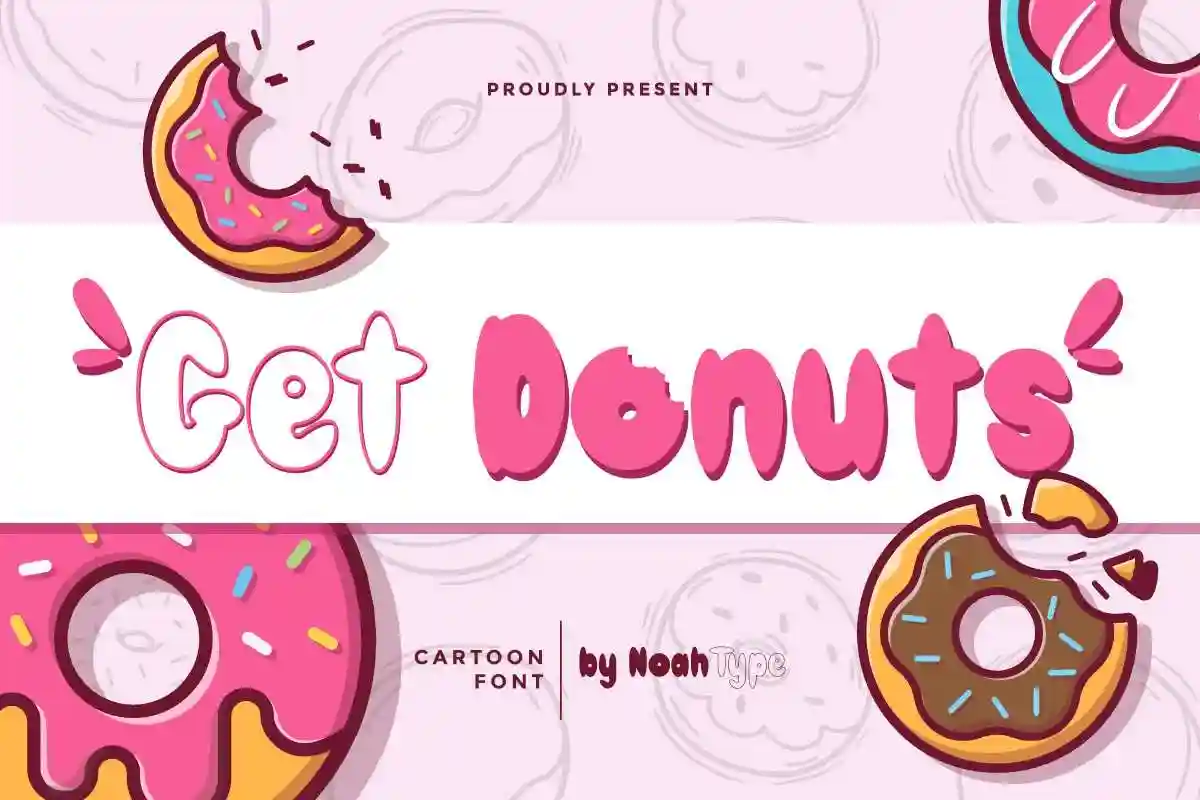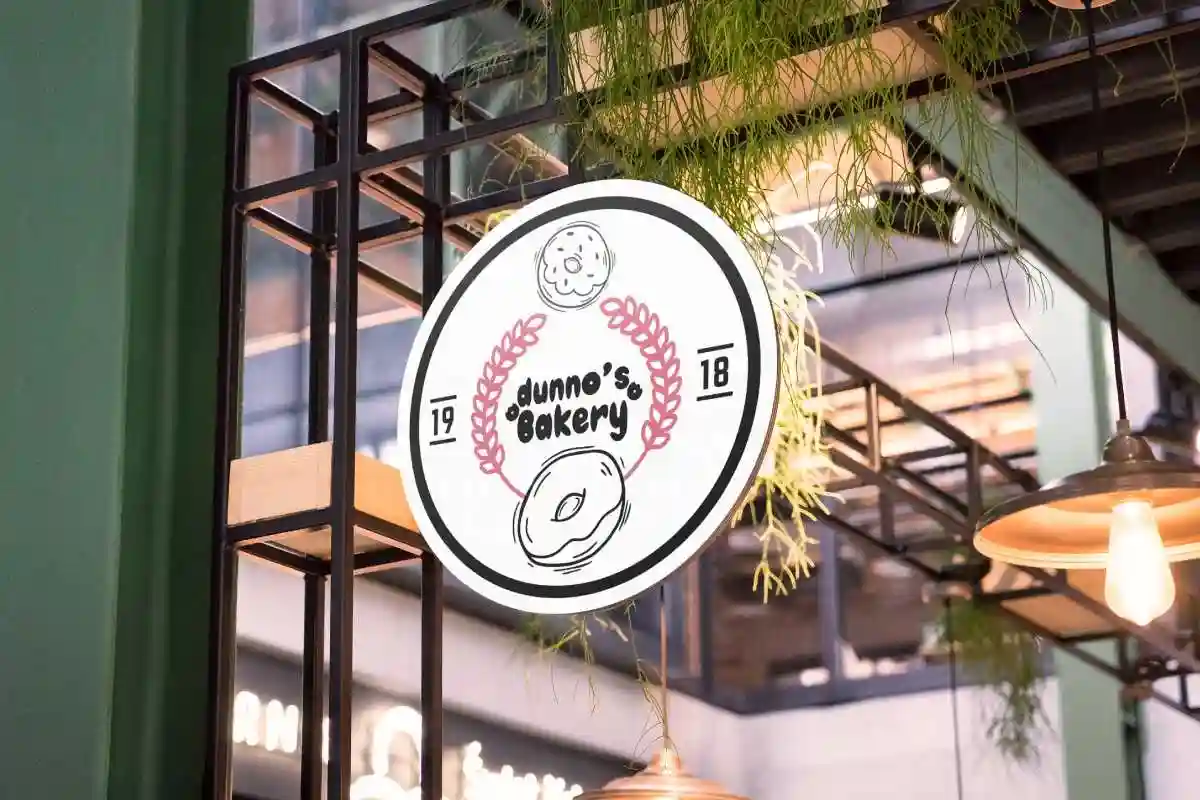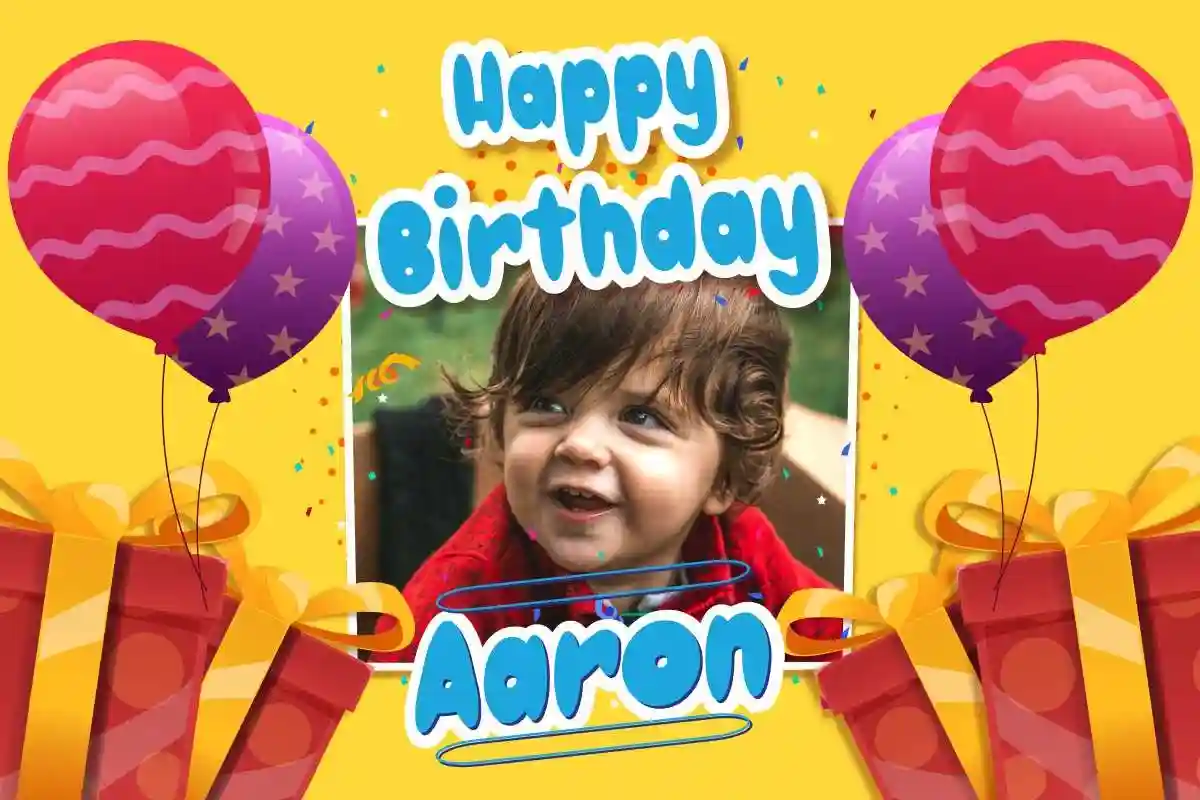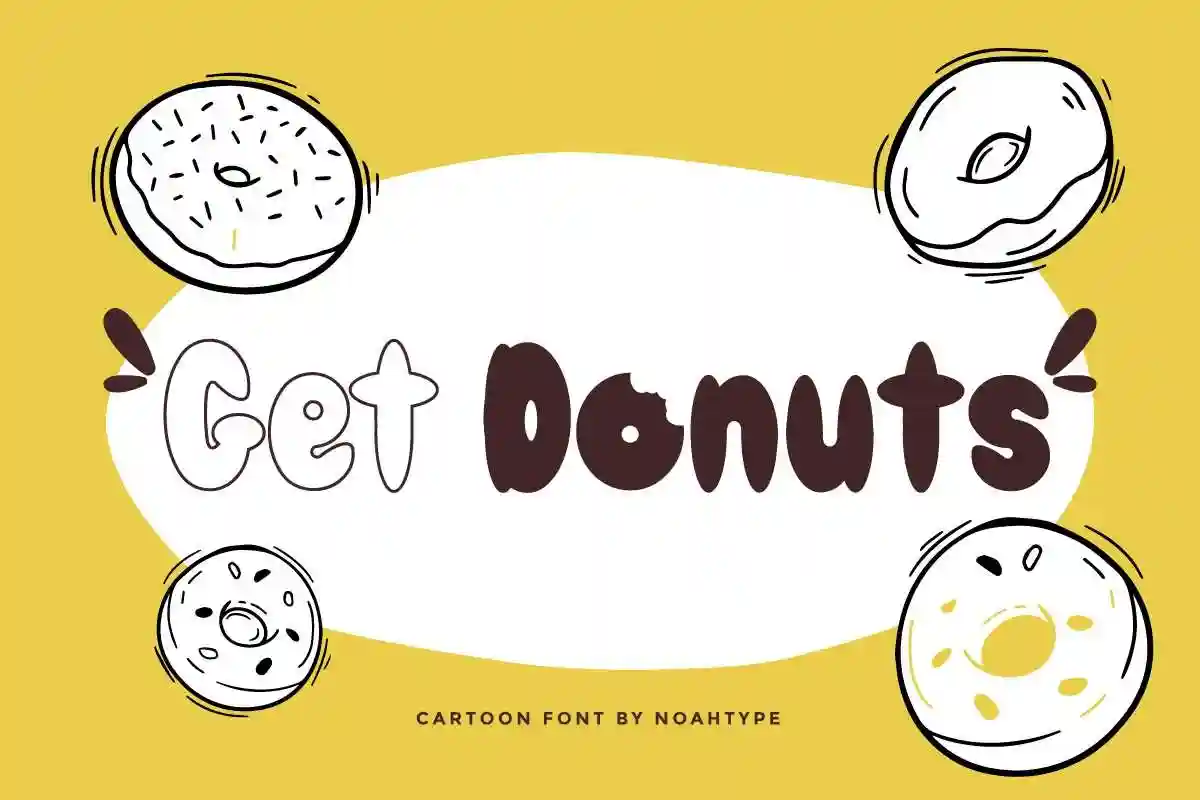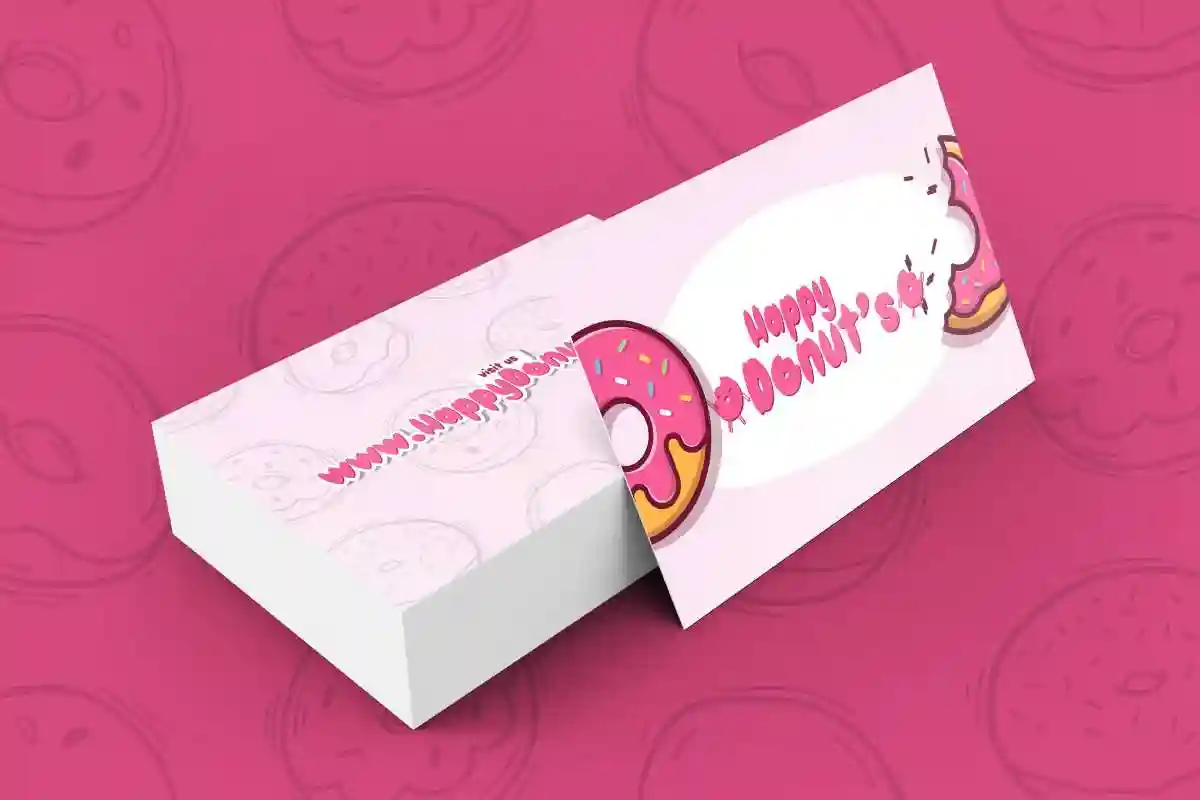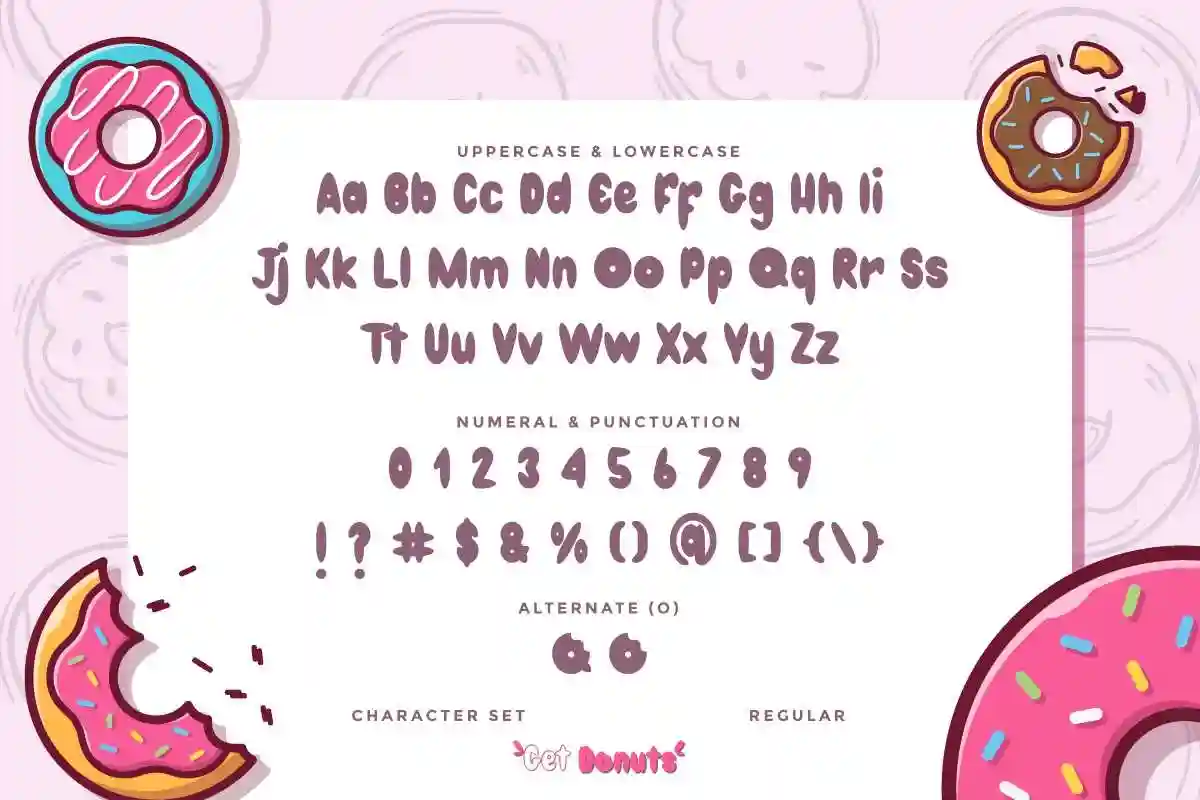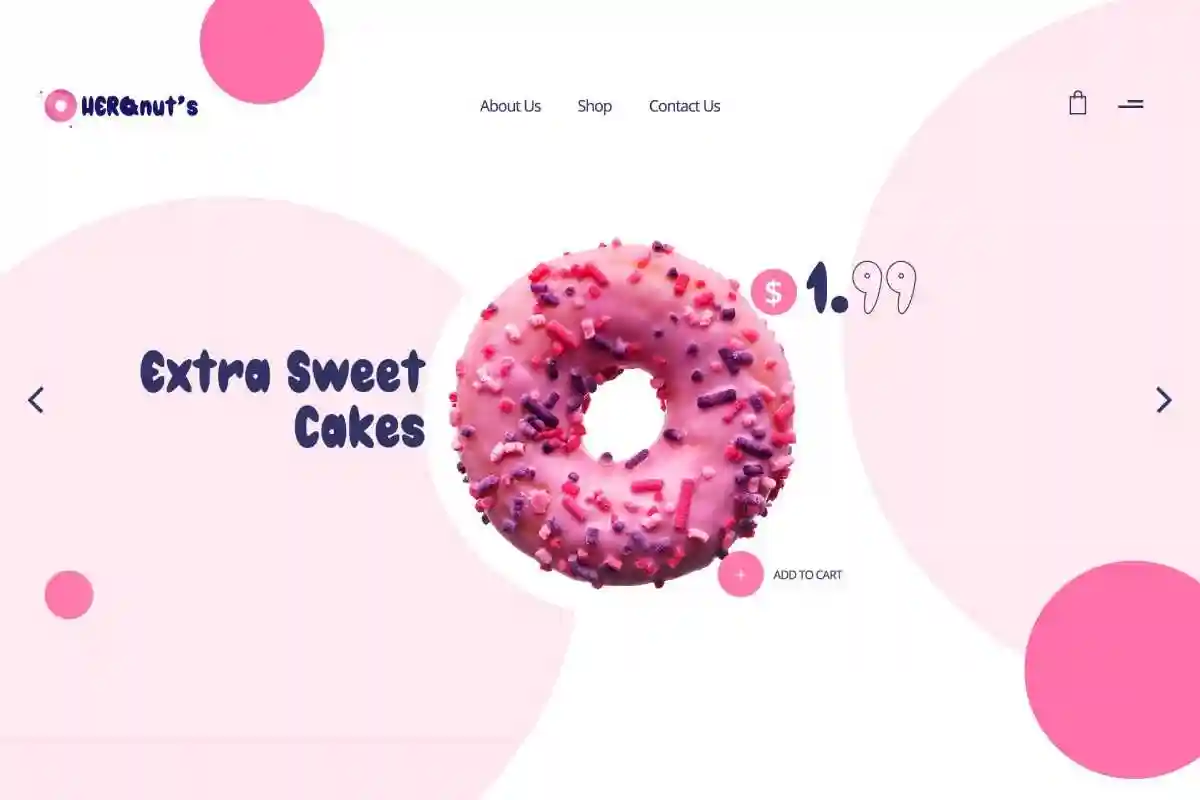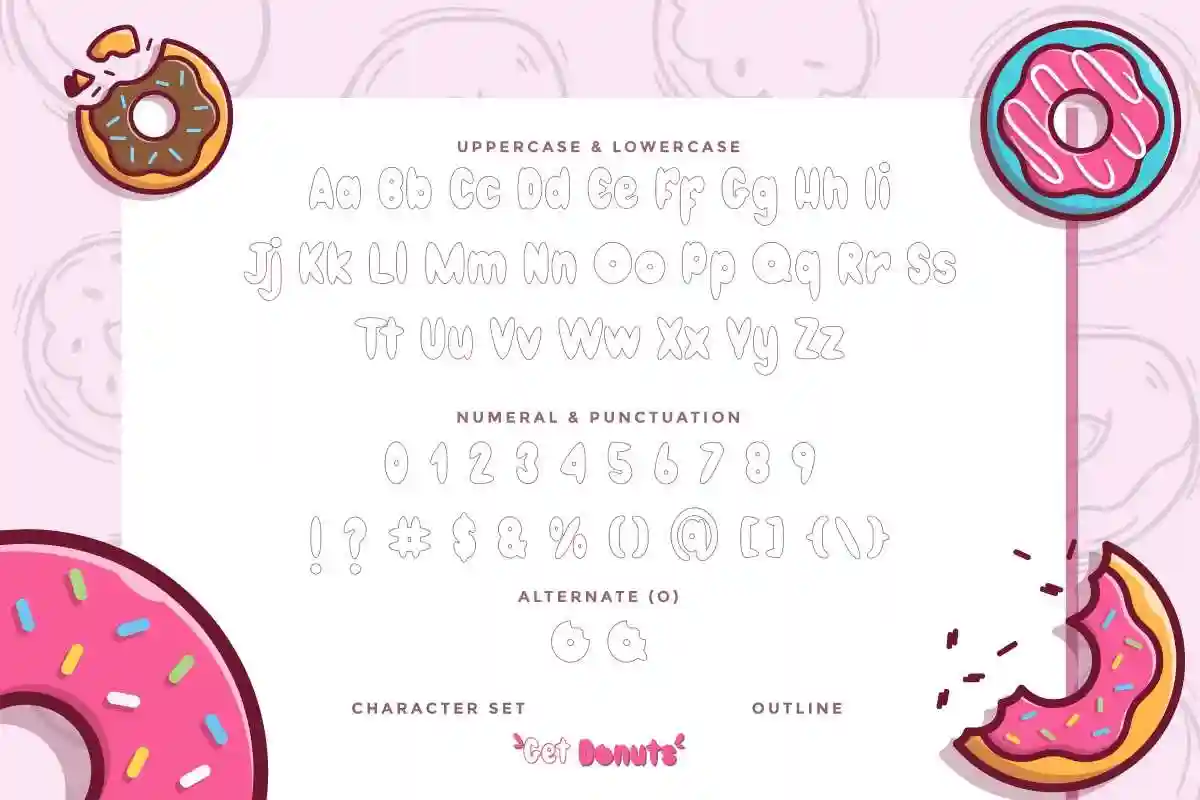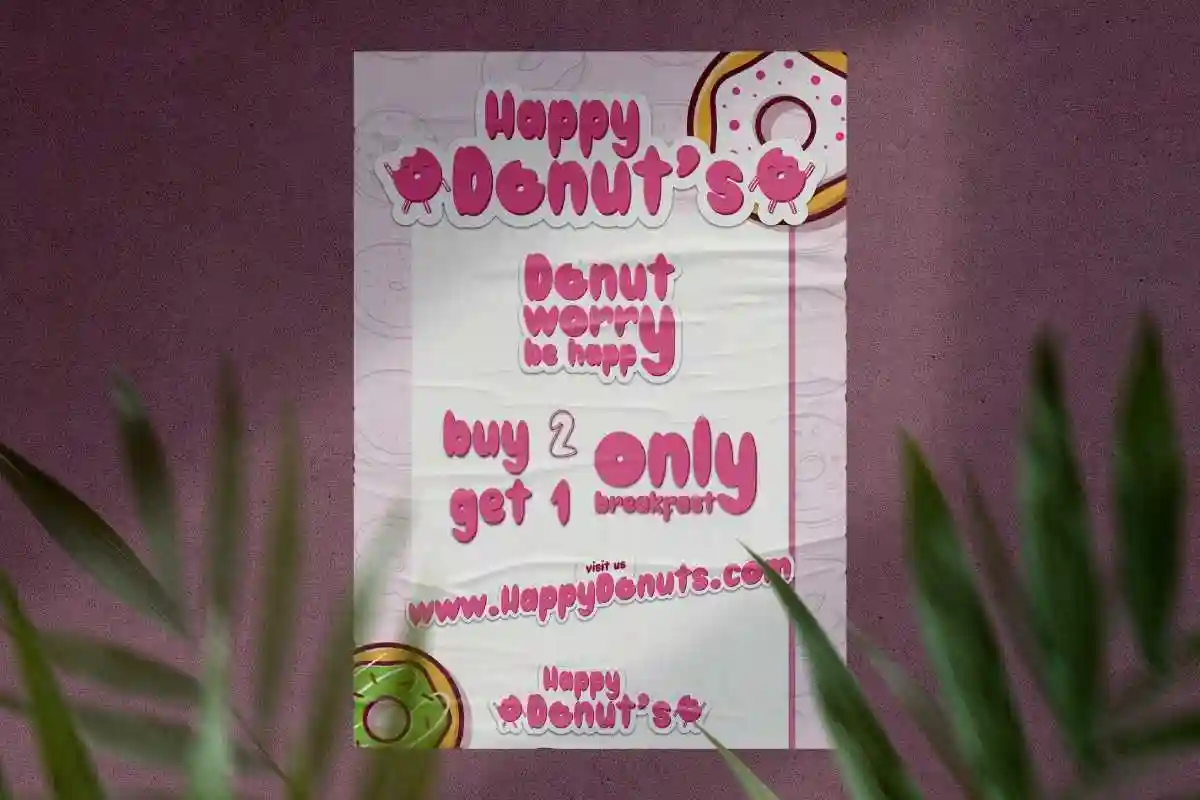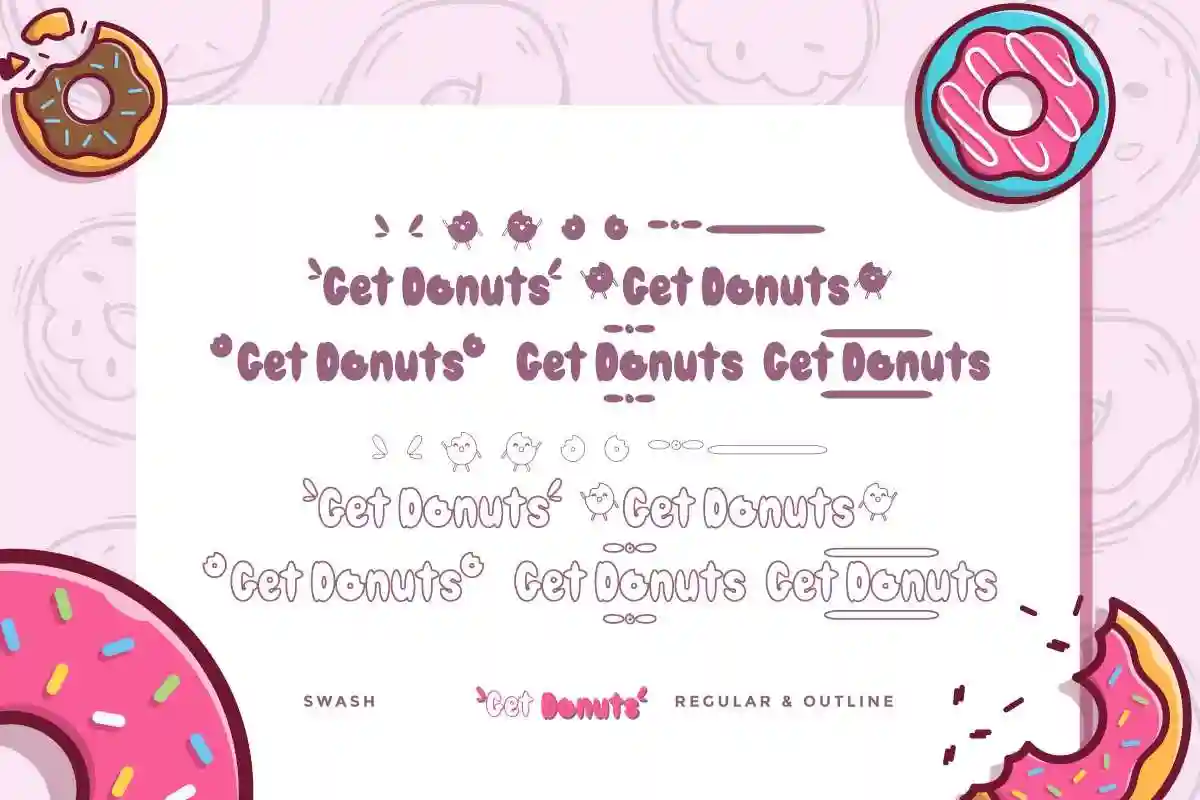
Get Donuts Font is a fun display font by NoahType, inspired from some delicious food menu in fastfood restaurant. This font is crafted carefully in every its single line, created to look as close to a natural handwritten script so that it can create the perfect combination on each glyph. When we make this font, we really want to create a touch that is so free-flowing that it gives a natural impression on its use later. This fun comic font is for anyone who are needing of fun and casual designs.
Get Donuts Font includes two styles : Regular and Outline. The fonts come with full set of Uppercase and Lowercase Basic Characters, Numerals and Punctuation. Also it contains some alternates characters to perfectly make natural handwriting look that add more aesthetic fonts to perfect your extraordinary project. Get Donuts Font will be awesome for comic, invitations, events, movie, donut, food, menu, restaurant, café, children book, school, kids products, social media etc
Get Donuts Font will be great for branding, logotype, social media post, poster, invitation, lettering and many more